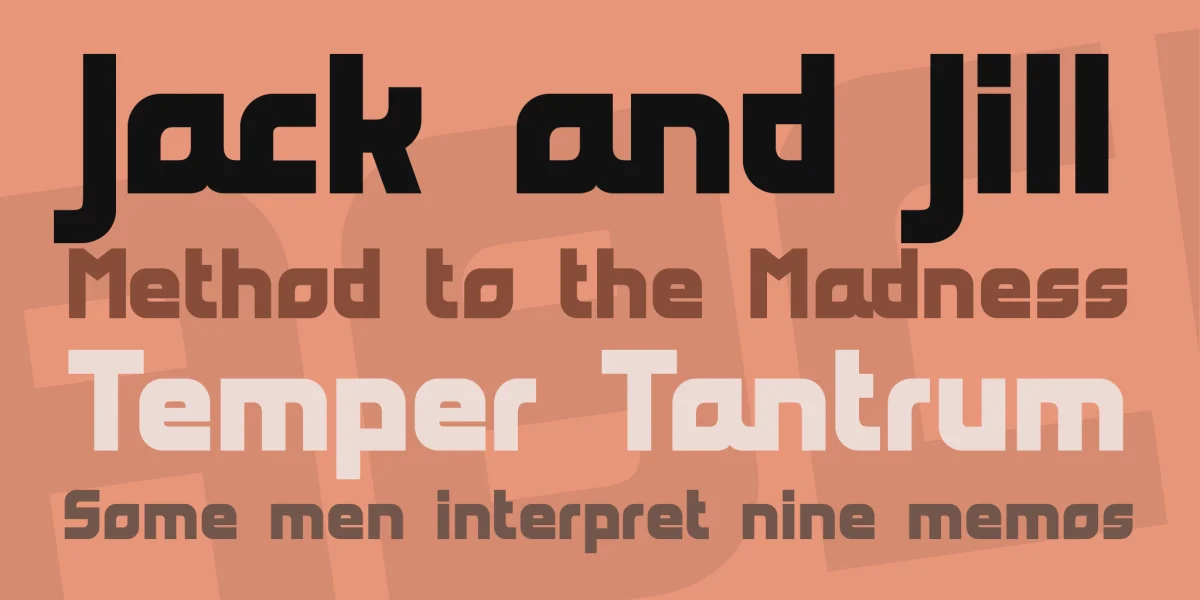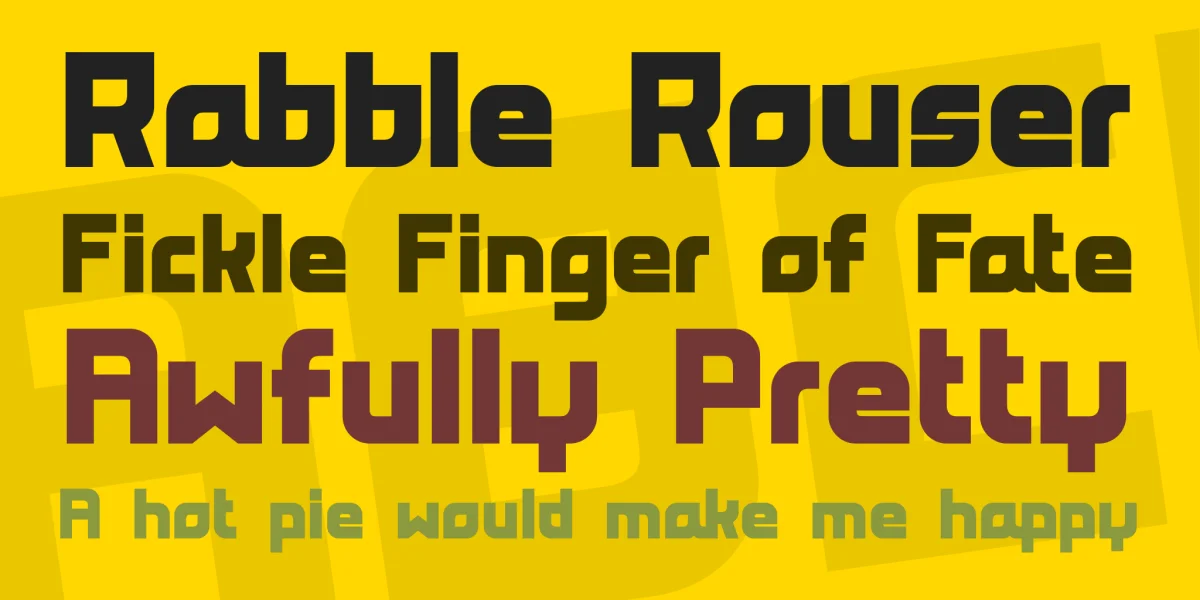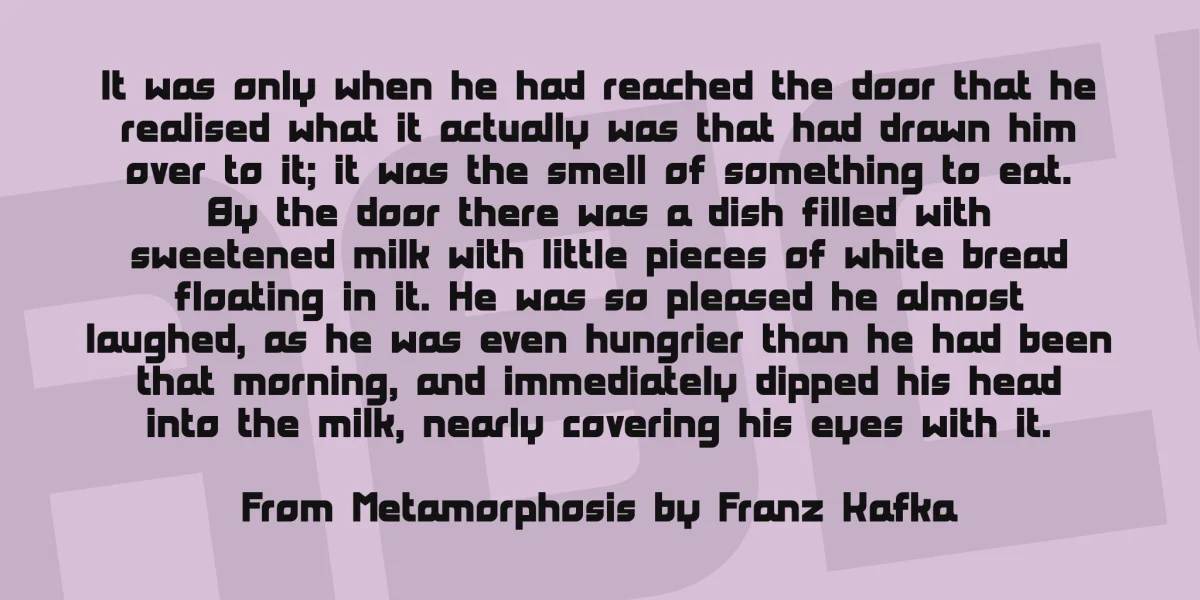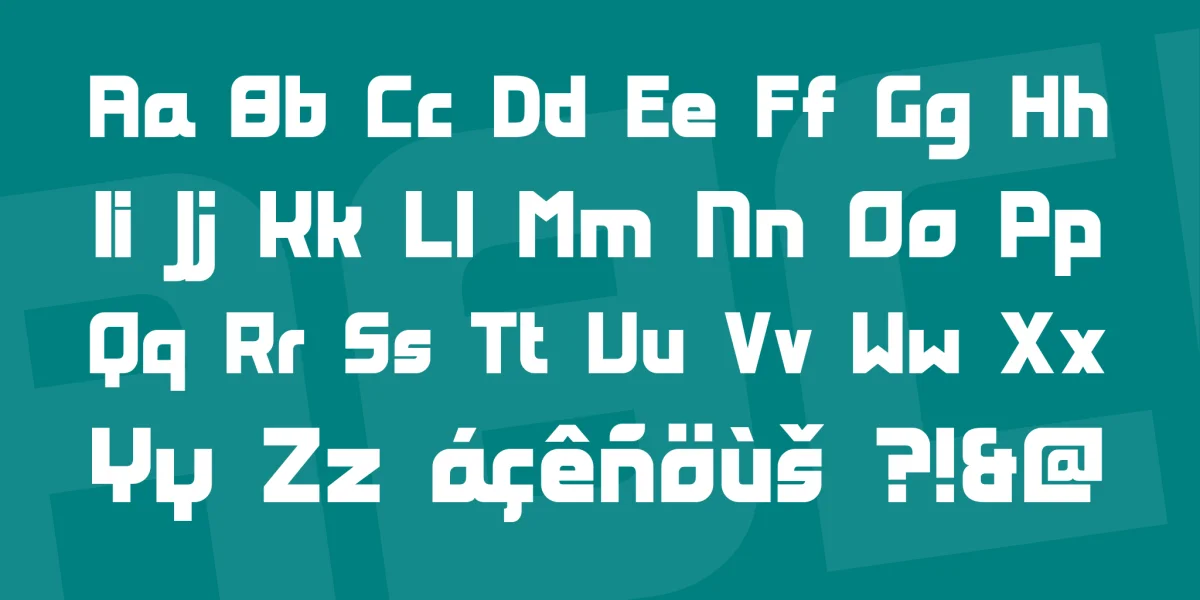
Peppermint is a Display Square Sans Serif Font. The aggressiveness of the corners collides with the smoothness of the curves, the glyphs becomes both fast and gentle as in a ride down the rapids we found sharp rocks and quiet creeks; the peppermint’s leaves are visible in some letters as “a” “o” or “Q”. Peppermint is a fresh Display Font, enjoy it on unconventional graphics.
Peppermint Family:
Peppermint Regular
Peppermint Bold